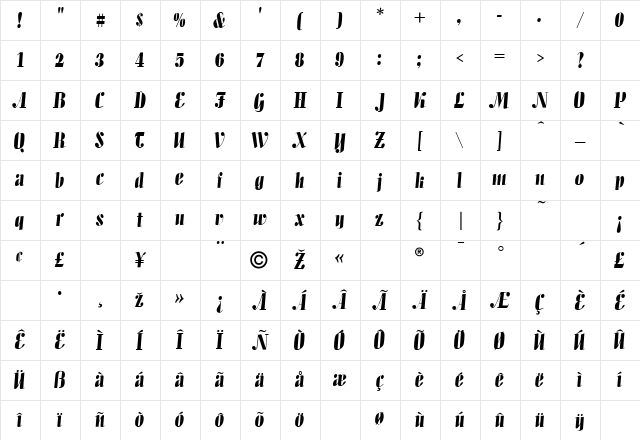
Allegro Regular Free Font
Allegro Regular
Design Context for Allegro
Allegro is a composed and adaptable typeface that performs quietly and consistently across a wide range of design contexts.
Pro Tip: Use Allegro in both headline and body roles to test its range before committing to a single application.